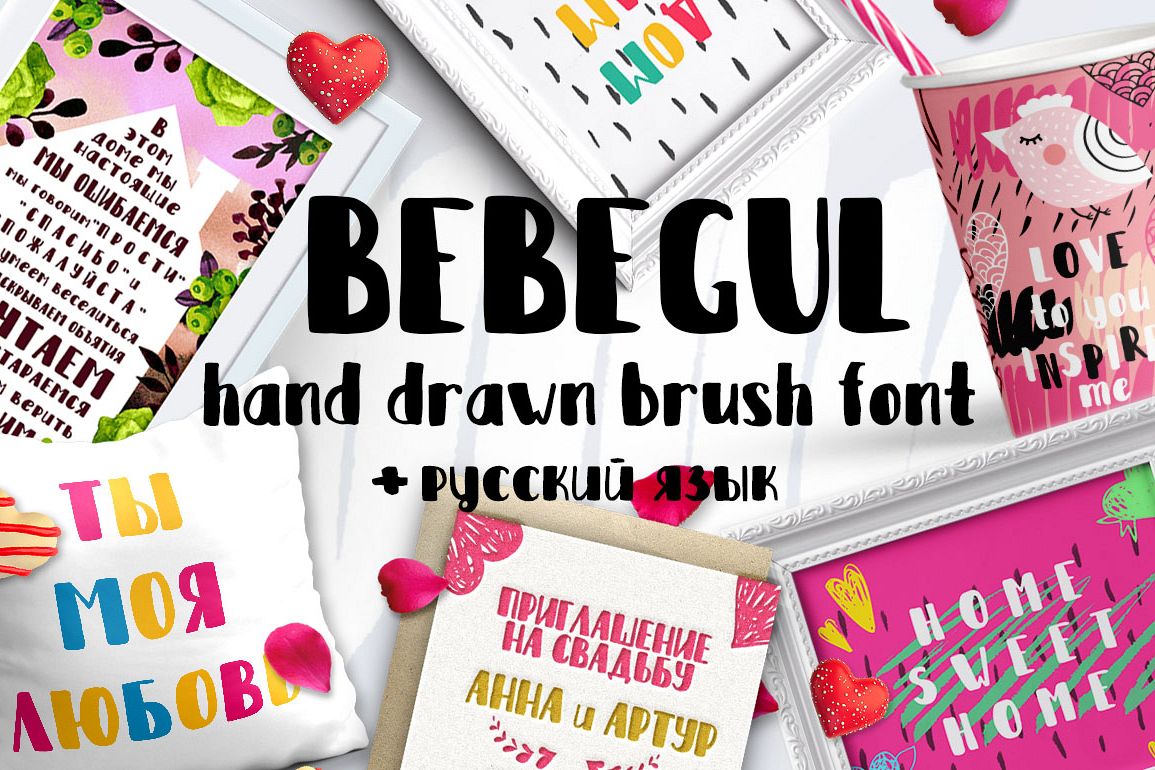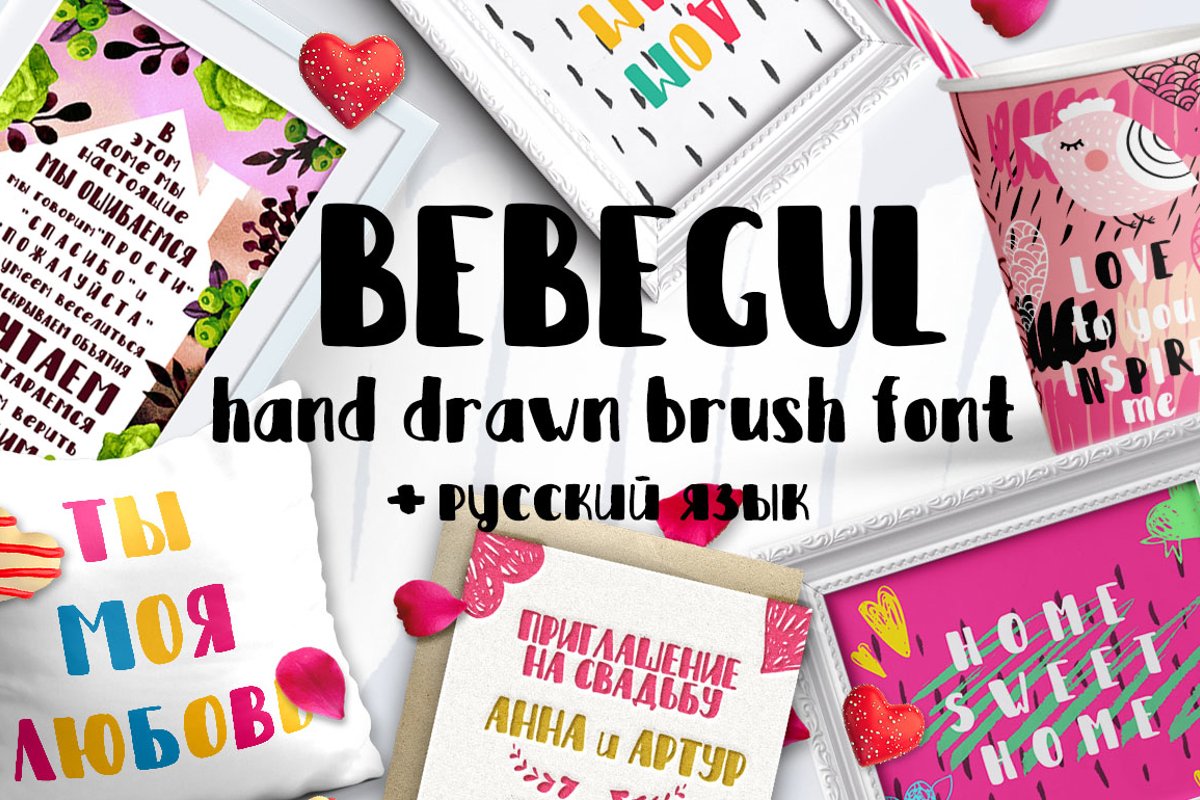
Bebegul-Hand drawn brush font
Bebegul-Regular
Bebegul hand drawn brush font was created with love. Every single letters have been carefully crafted to make your text looks beautiful. With modern unique style this font will perfect for many different project ex: design t-shirts, book cover, quotes, blog header, poster, branding, logo, invitations, cards, cases design, fashion, apparel, letter, invitation, stationery.